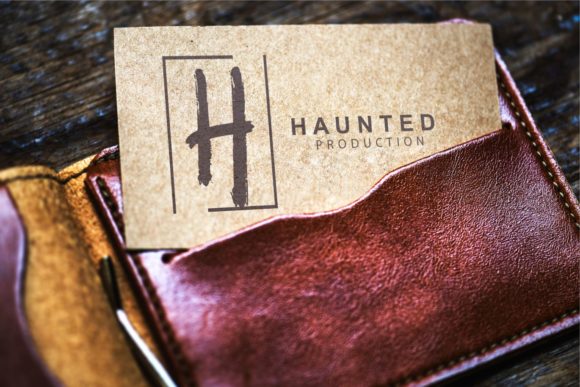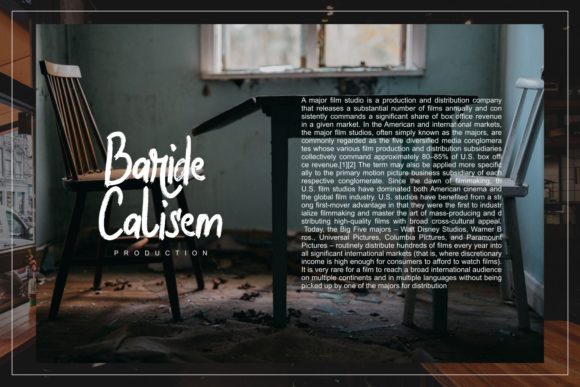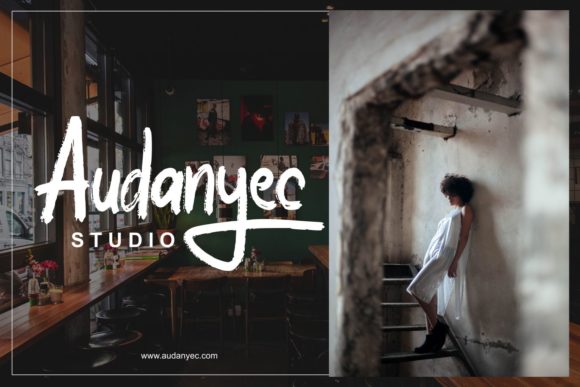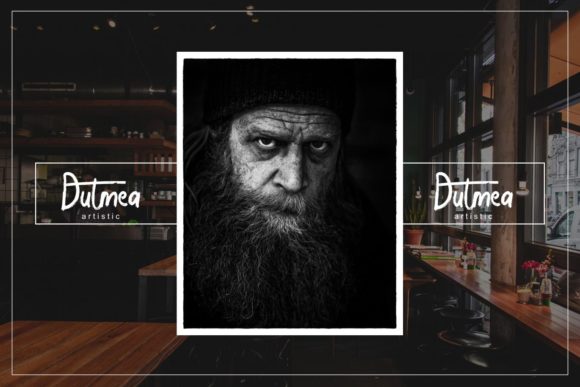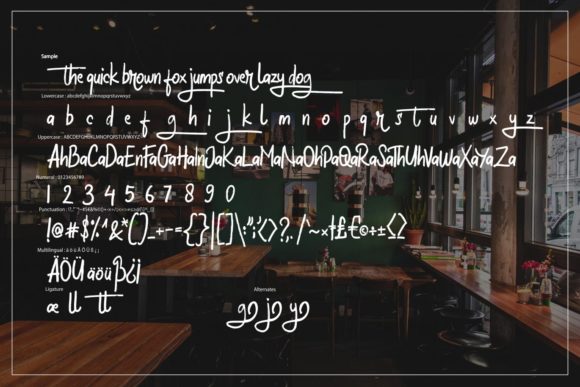
Halybed Font: A Stunning Handwritten Script with Classic Elegance
Are you looking for a font that exudes charm and sophistication? Look no further than the Halybed Font, a beautiful handwritten script that pays homage to the timeless art of classic calligraphy. With its varying baseline, smooth lines, gorgeous glyphs, and stunning alternates, Halybed is the perfect choice for designers and crafters seeking to add a touch of elegance to their projects.
The Characteristics of Halybed Font
Halybed Font is a true masterpiece of font design, boasting a range of features that set it apart from other fonts. Some of its key characteristics include:
- Varying Baseline: Halybed’s baseline varies subtly, giving the font a sense of organic, handwritten charm.
- Smooth Lines: The font’s lines are smooth and fluid, creating a sense of continuity and flow.
- Gorgeous Glyphs: Halybed features a wide range of gorgeous glyphs, including elegant letters, numbers, and punctuation marks.
- Stunning Alternates: The font includes stunning alternate characters, allowing you to add variety and interest to your text.
The Inspiration Behind Halybed Font
Halybed Font is a stylish homage to classic calligraphy, drawing inspiration from the traditional art of handwriting. The font’s creator sought to capture the essence of classic calligraphy, while also infusing it with a modern, fresh feel. The result is a font that feels both timeless and contemporary.
Uses for Halybed Font
Halybed Font is a versatile font that can be used in a wide range of design projects, including:
- Wedding Invitations: Add a touch of elegance to your wedding invitations with Halybed’s beautiful script.
- Branding and Packaging: Use Halybed to create stunning brand identities and packaging designs that exude sophistication.
- Stationery and Cards: Create beautiful stationery and cards with Halybed’s gorgeous glyphs and smooth lines.
- Digital Design: Use Halybed in digital designs, such as website headers, social media graphics, and more.
Why Designers and Crafters Love Halybed Font
Designers and crafters love Halybed Font for its unique combination of elegance and charm. Here are just a few reasons why:
- Unique and Distinctive: Halybed’s varying baseline and stunning alternates make it a unique and distinctive font that stands out from the crowd.
- Elegant and Sophisticated: Halybed exudes elegance and sophistication, making it perfect for high-end designs.
- Easy to Read: Despite its ornate feel, Halybed is easy to read, making it perfect for body text and longer passages.
Tips for Using Halybed Font
To get the most out of Halybed Font, here are a few tips to keep in mind:
- Use it Sparingly: Halybed is a bold font, so use it sparingly to avoid overwhelming your design.
- Experiment with Alternates: Take advantage of Halybed’s stunning alternates to add variety and interest to your text.
- Pair it with Other Fonts: Halybed pairs beautifully with other fonts, so don’t be afraid to experiment with different combinations.
In conclusion, Halybed Font is a stunning handwritten script that is sure to charm and delight designers and crafters alike. With its varying baseline, smooth lines, gorgeous glyphs, and stunning alternates, Halybed is the perfect choice for anyone seeking to add a touch of elegance and sophistication to their designs. Whether you’re creating wedding invitations, branding and packaging, or digital designs, Halybed is a versatile font that is sure to impress.